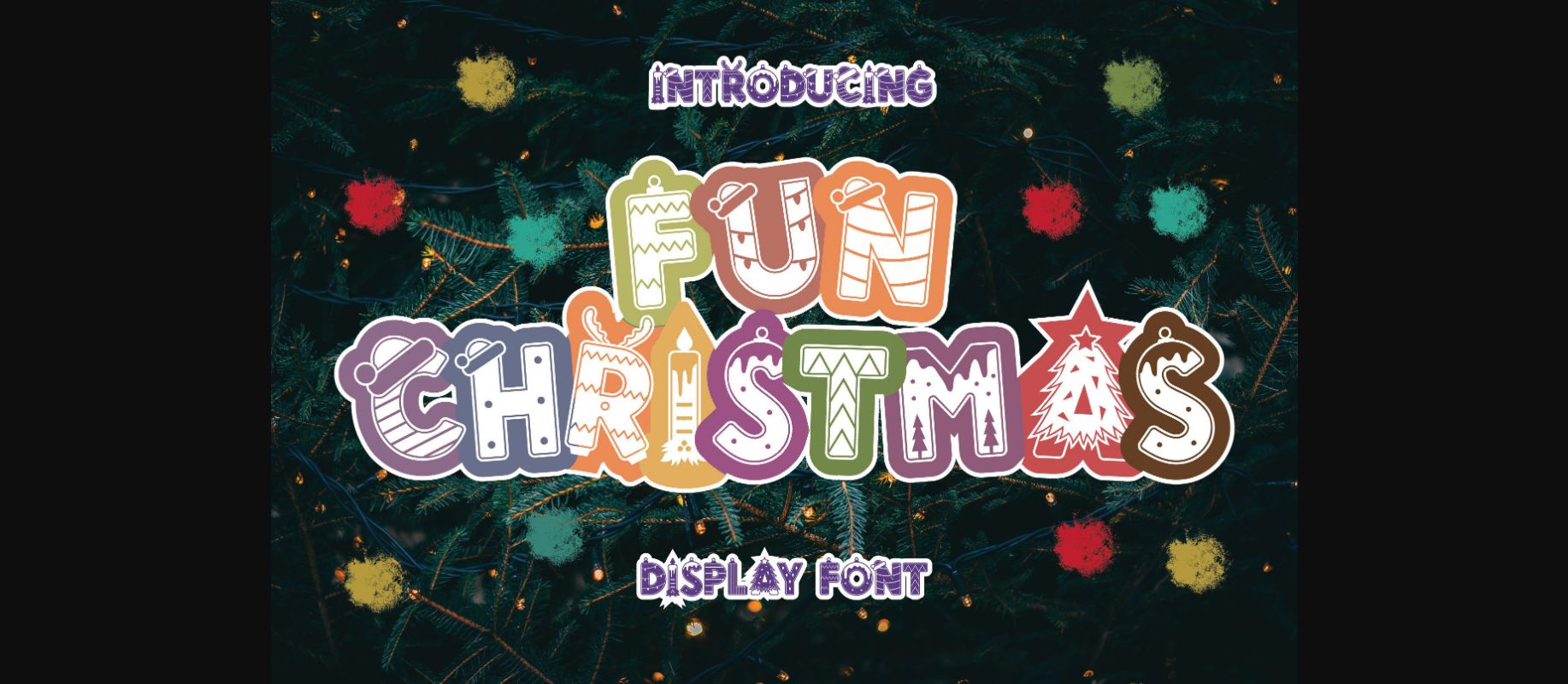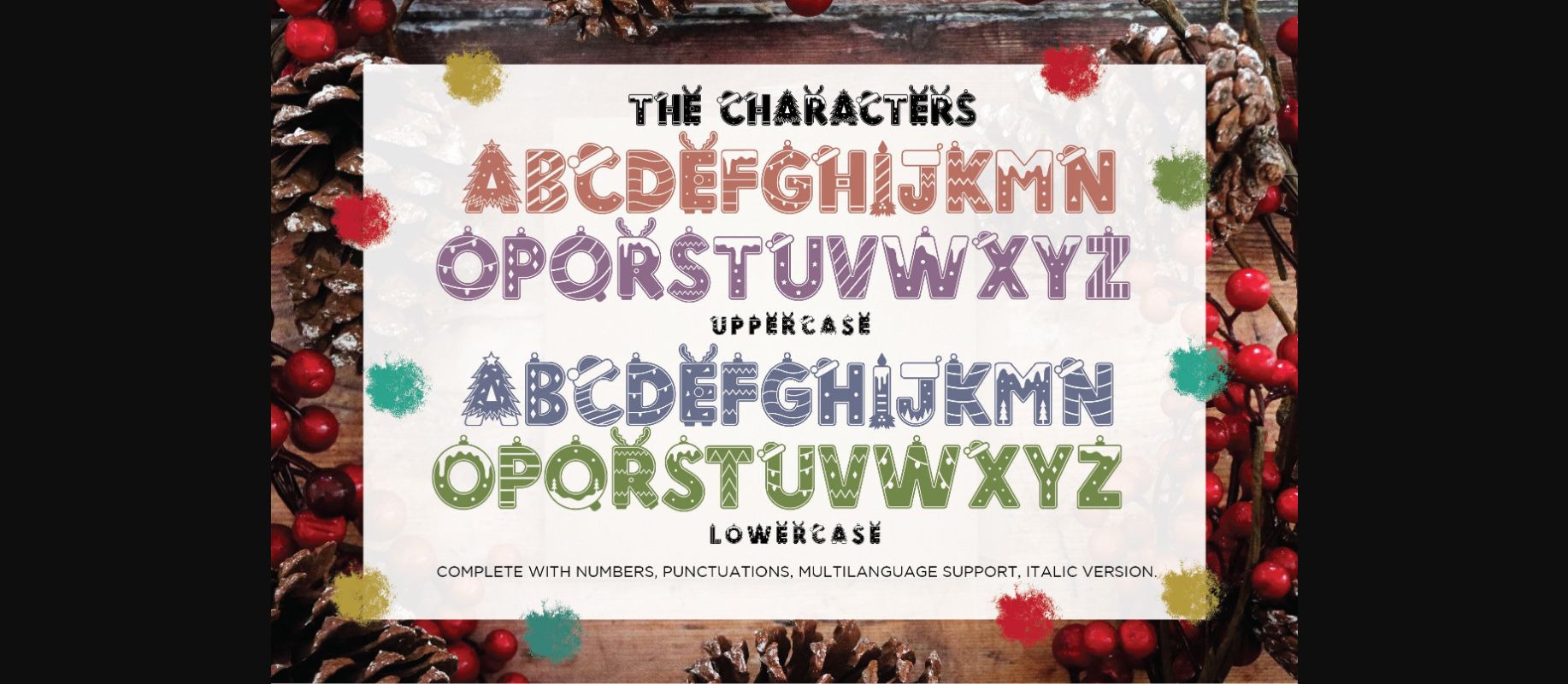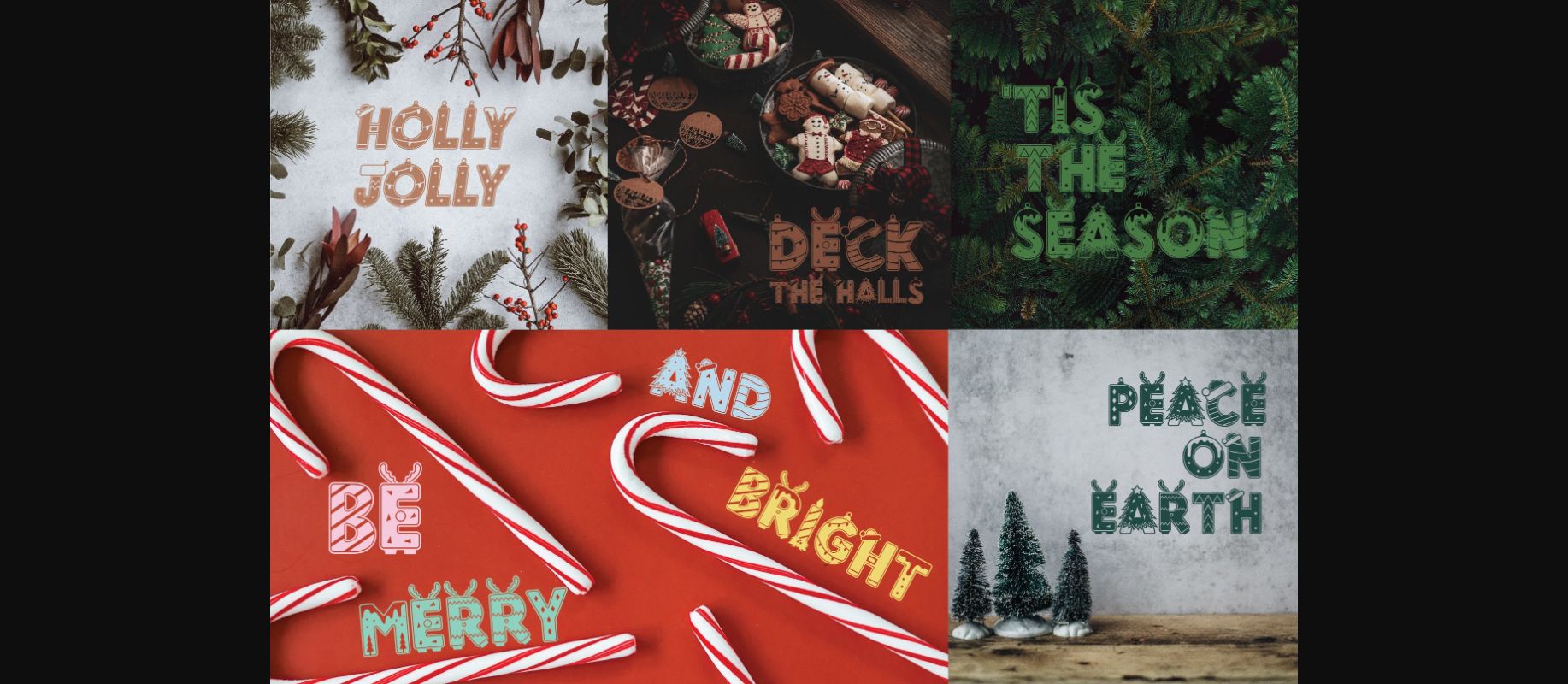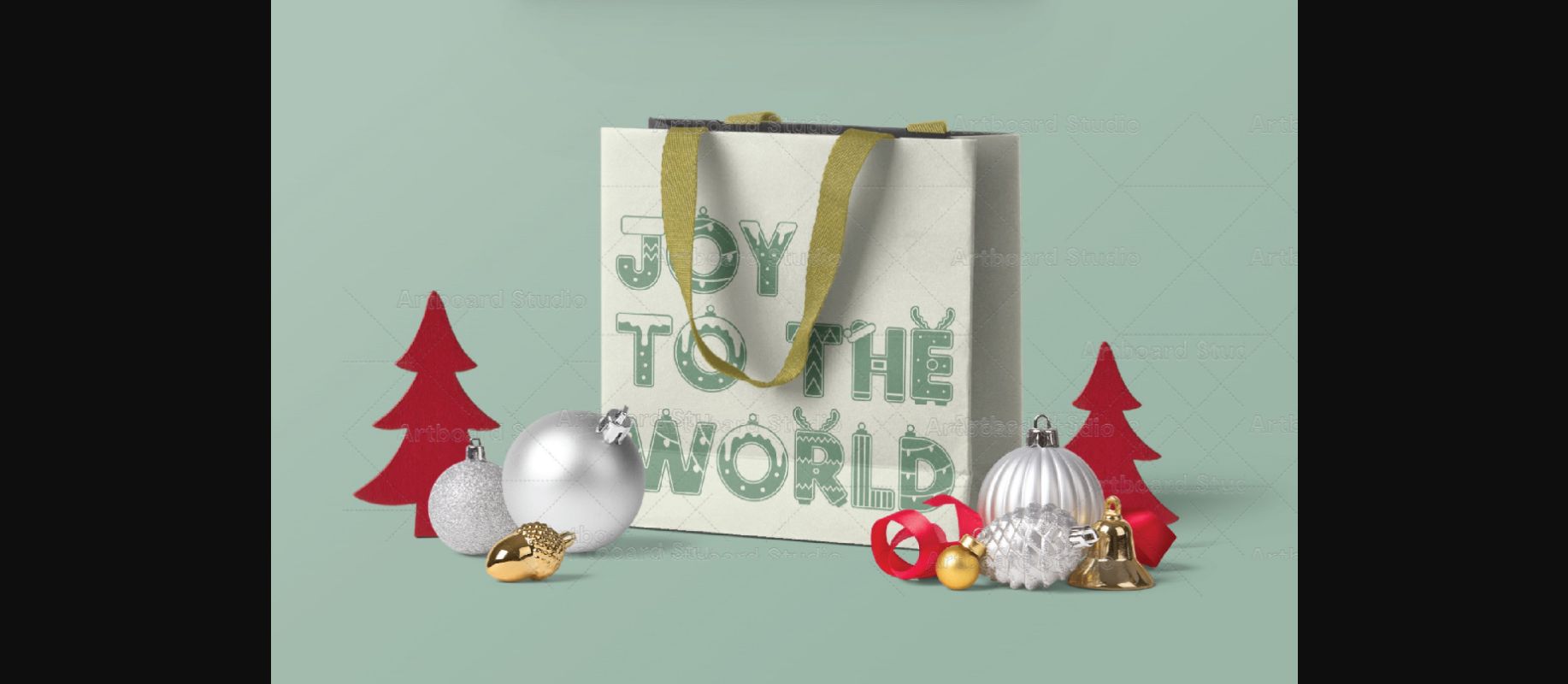
About Fun Christmas Font
Fun Christmas is a cute decorative font with a Christmas theme. Use this cute font for your next Christmas project. Make your own poster, t-shirt, invitation, Christmas card, and many others!